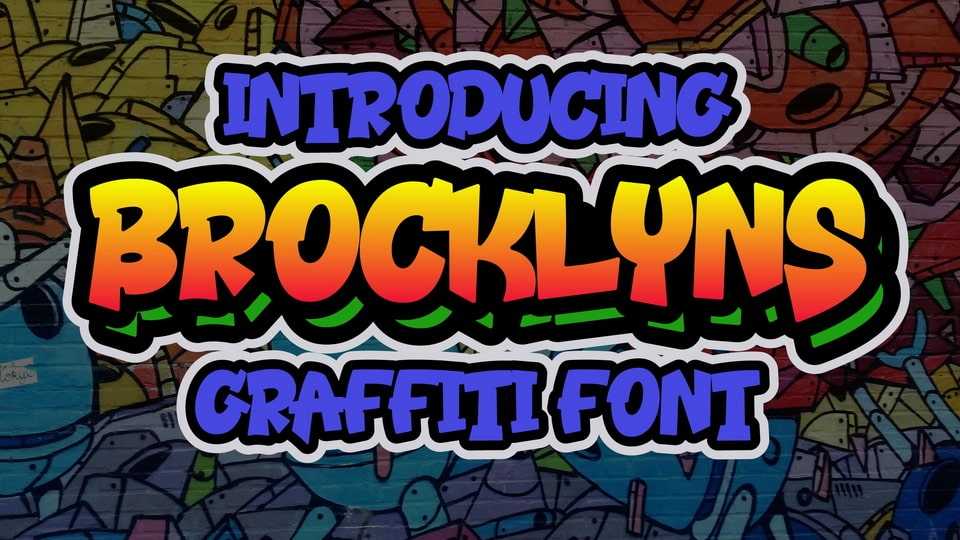
Download Brooklyn font, a cool, graffiti-style display typeface. Add this font to your urban and casual creations, and you will love the outcome. This font is suitable for designs such as t-shirts, sportswear, logos, advertisements, clothing, and more.